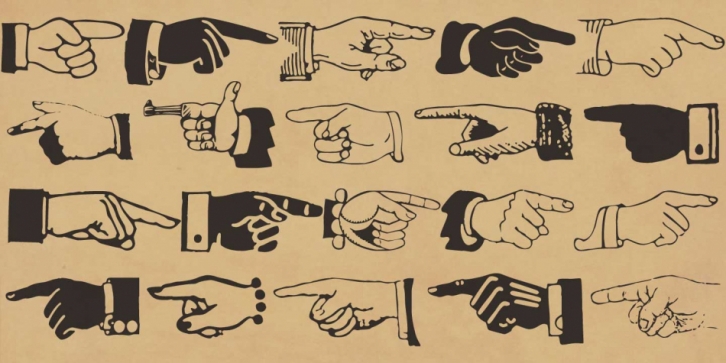
Handsome is a dingbat font published by CastleType.
Handsomeâ„¢ is a collection of 36 antique style hands. For each hand, there are both right-facing and left-facing glyphs. Great for adding an accent here and there in your document.